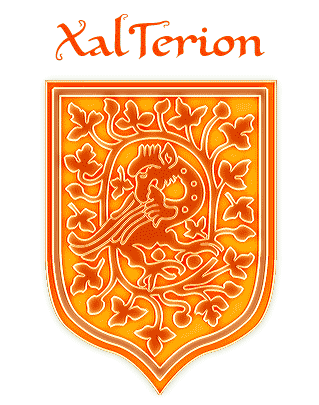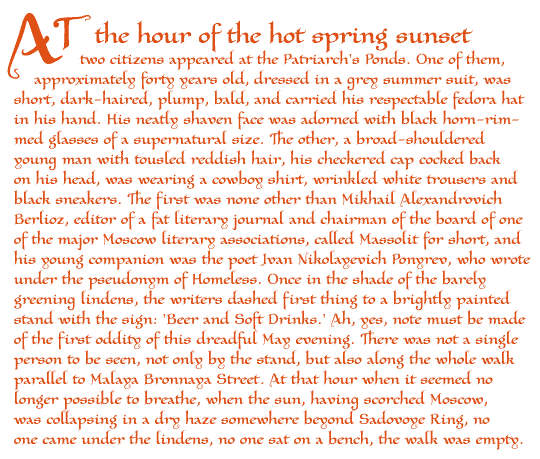
This font was inspired by a few lower case characters penned by a much admired North American calligrapher. However, to make this quite clear: Even the b, h, p, and t I went from, are only similar in shape to the originals, and by no way exact copies. Everything else -- especially that little hook in the l, A, X, and elsewhere --, is purely of my own invention. Unfortunately, that North American calligrapher never answered to my emails asking permission to link to the image on his website which gave me the idea. Of course, I'm in no position to resent anyone's not replying to The font name is fancy (pronouncing the X as an s may give it some meaning), and the winged beast on the micro sign is derived from the same inital that was used in the Tycho'sRecipe font. For a change, the XalTerion font has a number sign Update 2010 has considerably downsized the font, has made the stems of the b, d, f, h, k, and l somewhat higher (the Th will look a lot better now), has enlarged the dashes, and has not only redesigned the composite glyphs, but added many new ones. In fact, the font now contains every accented Western character I could find in Arial -- including Ohorn/ohorn, U/uhorn and their derivatives, as well as Schwa/schwa. |
Opening paragraph of the novel The Master And Margarita by Michail A. Bulgakov;